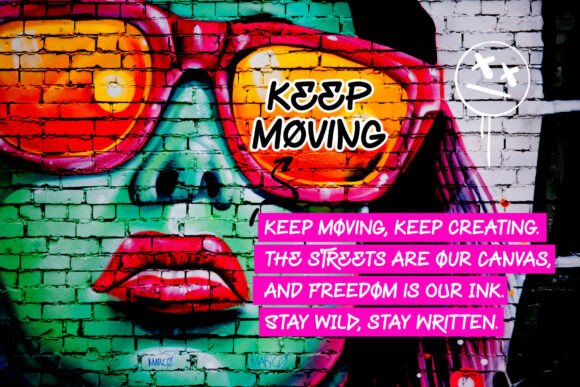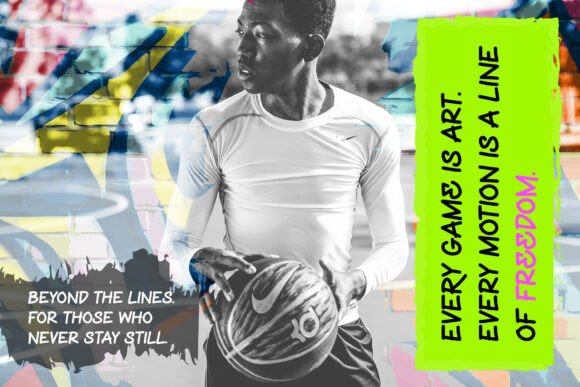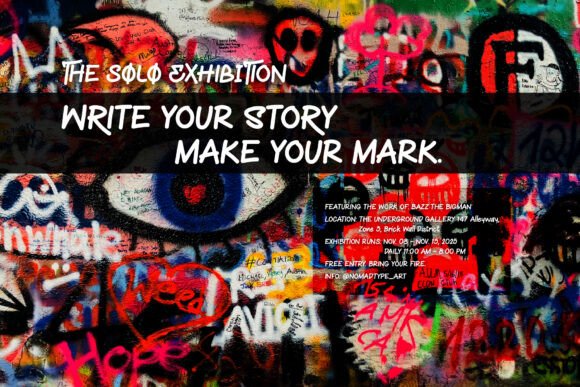
Introduction to Nomad Type Font
Introducing Nomad Type, an audacious handwritten display font crafted for the ever-evolving creator.
This font synthesizes the unrefined vitality of street art and the contemporary visual allure of sports aesthetics Ideal for branding initiatives, riveting posters, striking album covers, and engaging social media graphics, Nomad Type infuses every project with momentum and audacity.
Nomad Type Font offers exceptional quality and versatility, making it a valuable addition to your design toolkit. Whether you’re creating for personal projects or commercial use, Nomad Type Font delivers professional results.